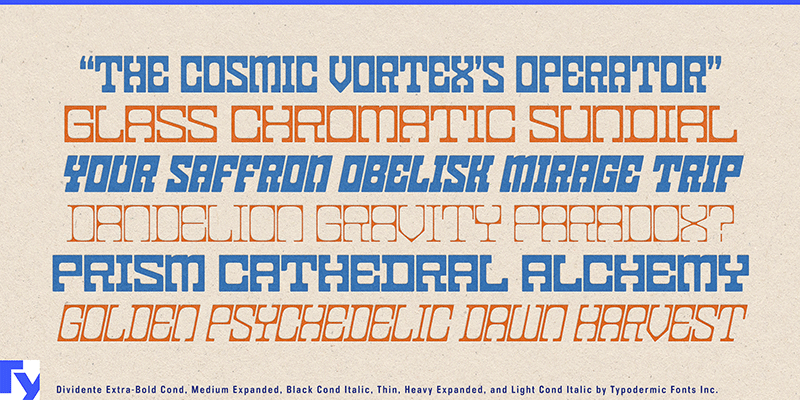
Dividente
Dividente channels the bold display lettering of the late 1960s, when geometric forms and swinging-London optimism filled shop windows and magazine covers. Square-shouldered shapes meet soft superelliptical curves, creating a look that feels both mod and contemporary. Its tightly spaced forms deliver instant impact, shifting easily from punchy headlines to stylish editorial layouts when tracked out. Warm, decorative, and unmistakably human, Dividente suits branding, packaging, posters, album art, and other projects that want a shot of retro energy with modern polish. These fonts include a license that allows free commercial use: sometimes referred to as a desktop license. This allows you to install the fonts on a computer and use them to create posters, web graphics, game graphics, t-shirts, videos, signs, logos and more. Read the license agreement for details. If you'd like to embed this font in an app, on the web or anything that's not covered by the desktop license agreement, visit the link below. You'll find distributors who offer different types of licenses, or you can contact me for help. https://typodermicfonts.com/dividente/ These free fonts are part of a larger font family. Check out the rest of the family through the link above.